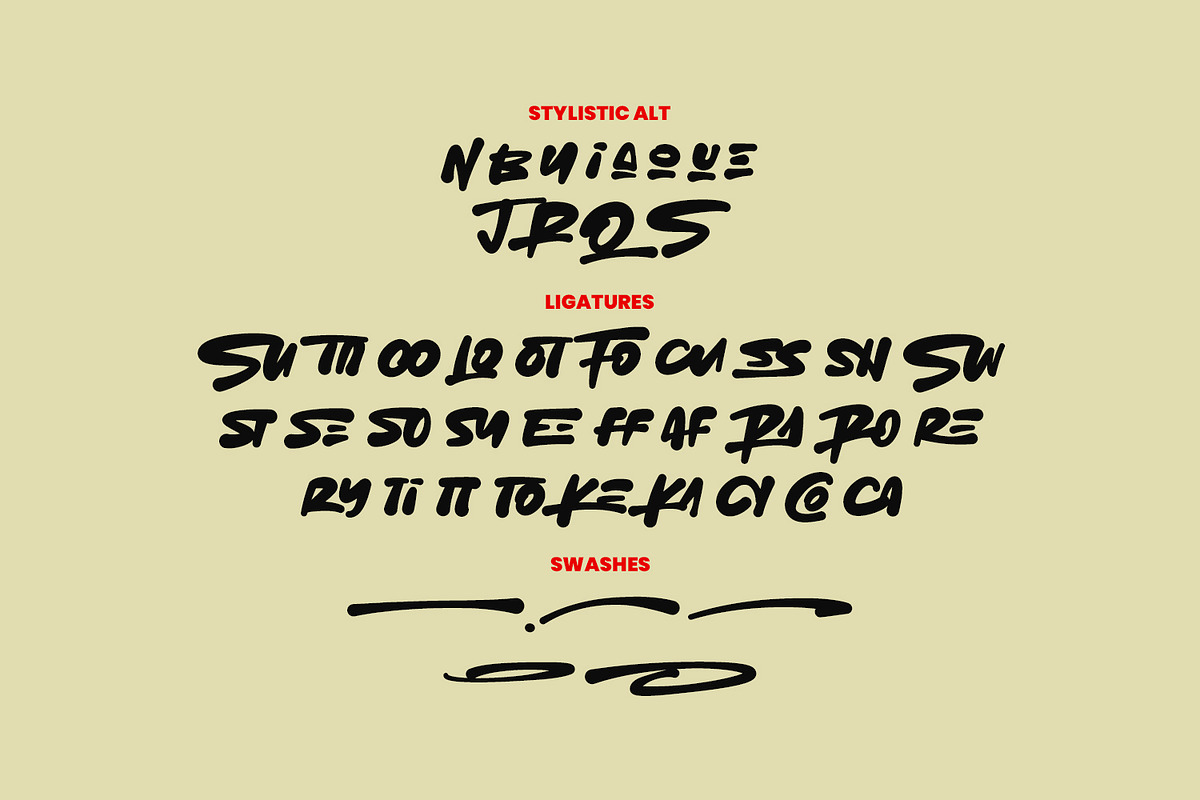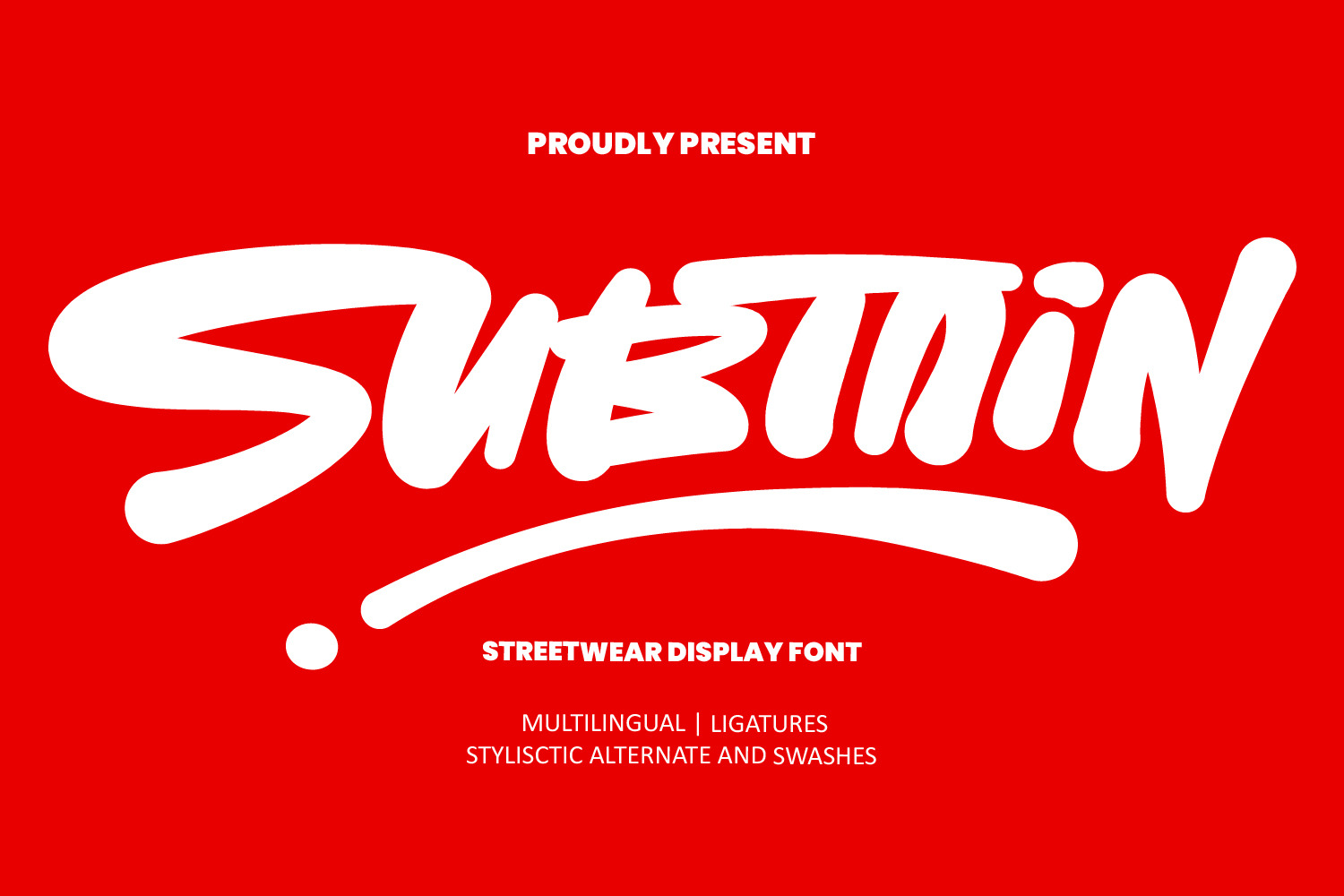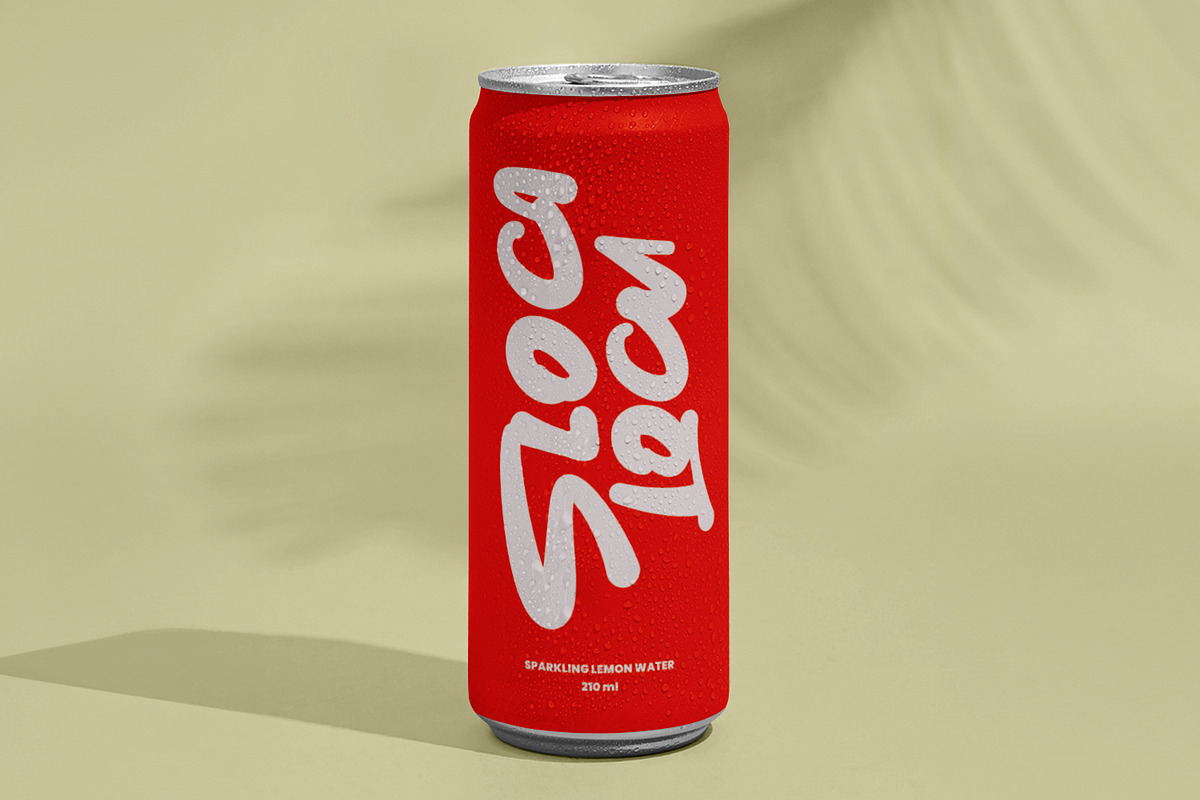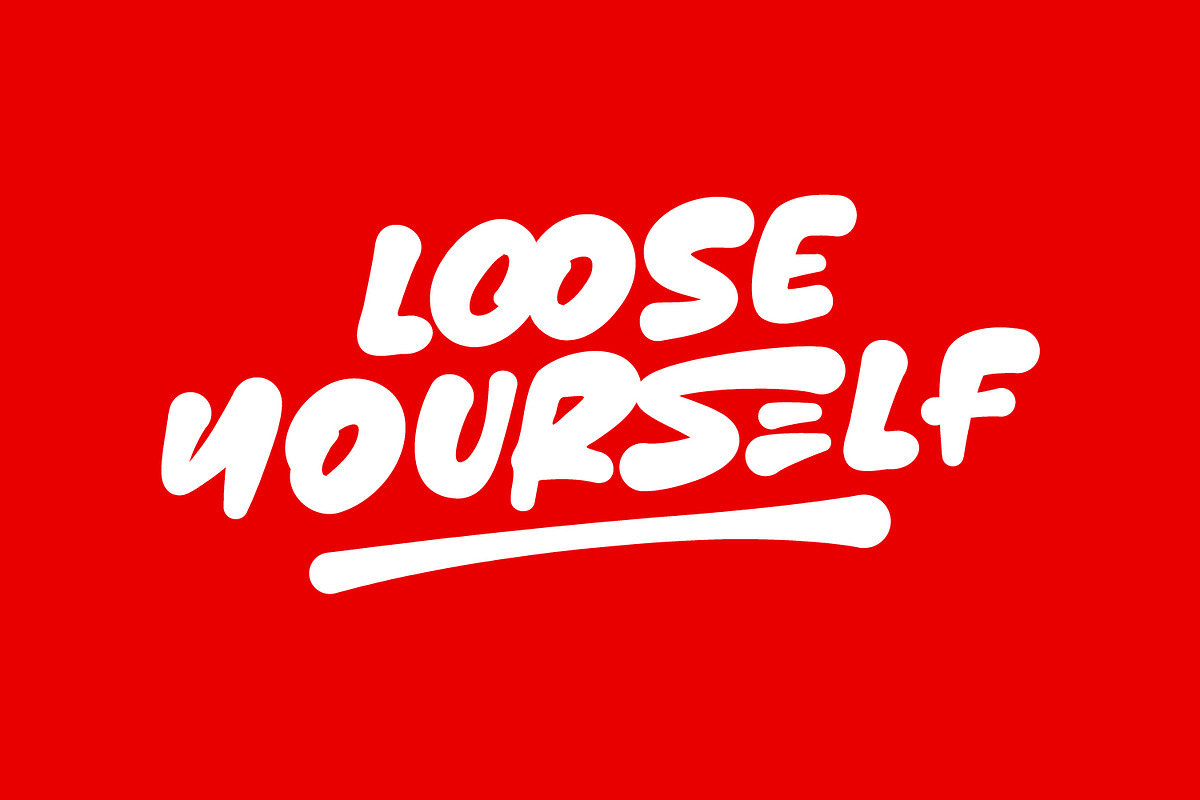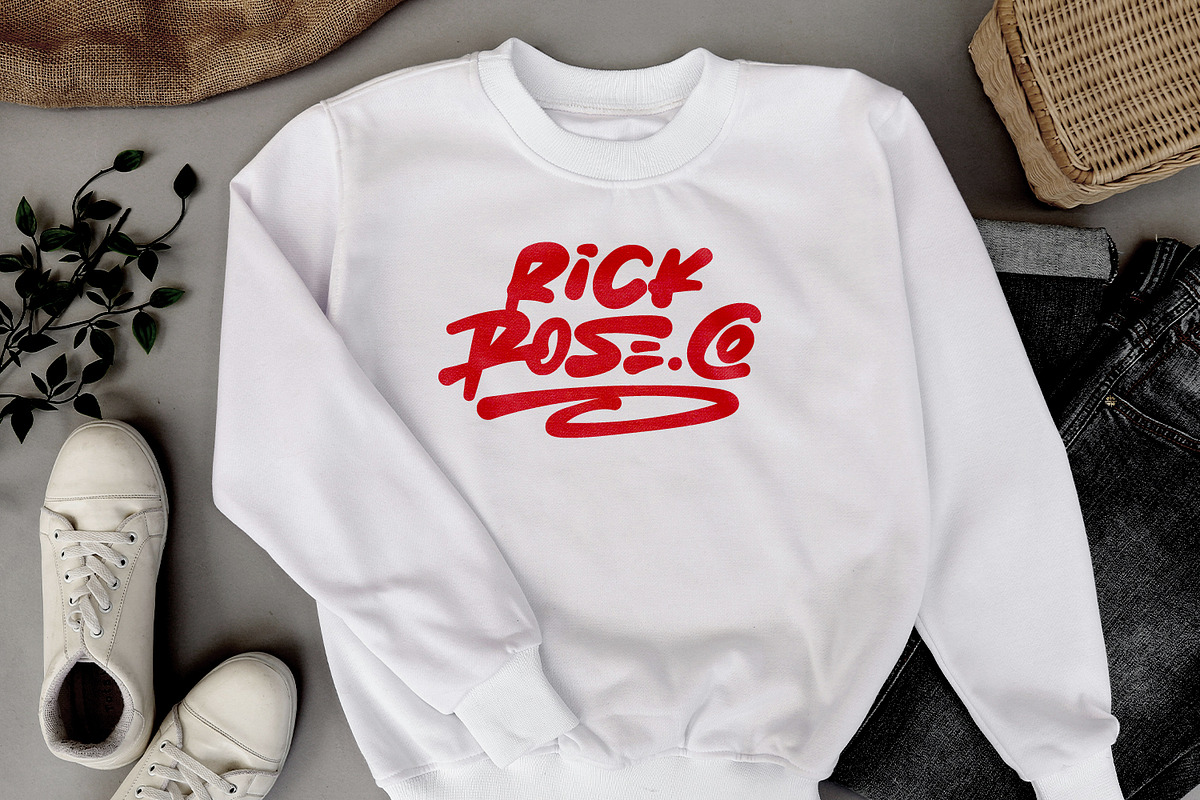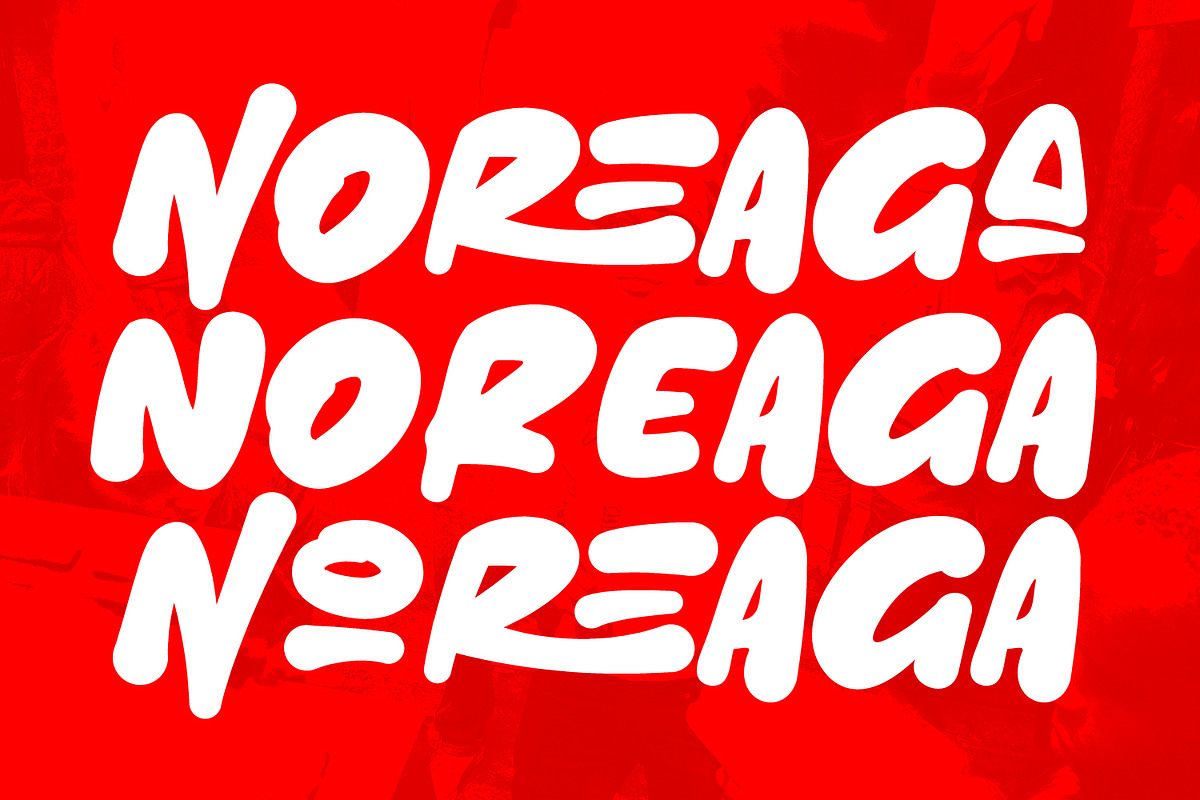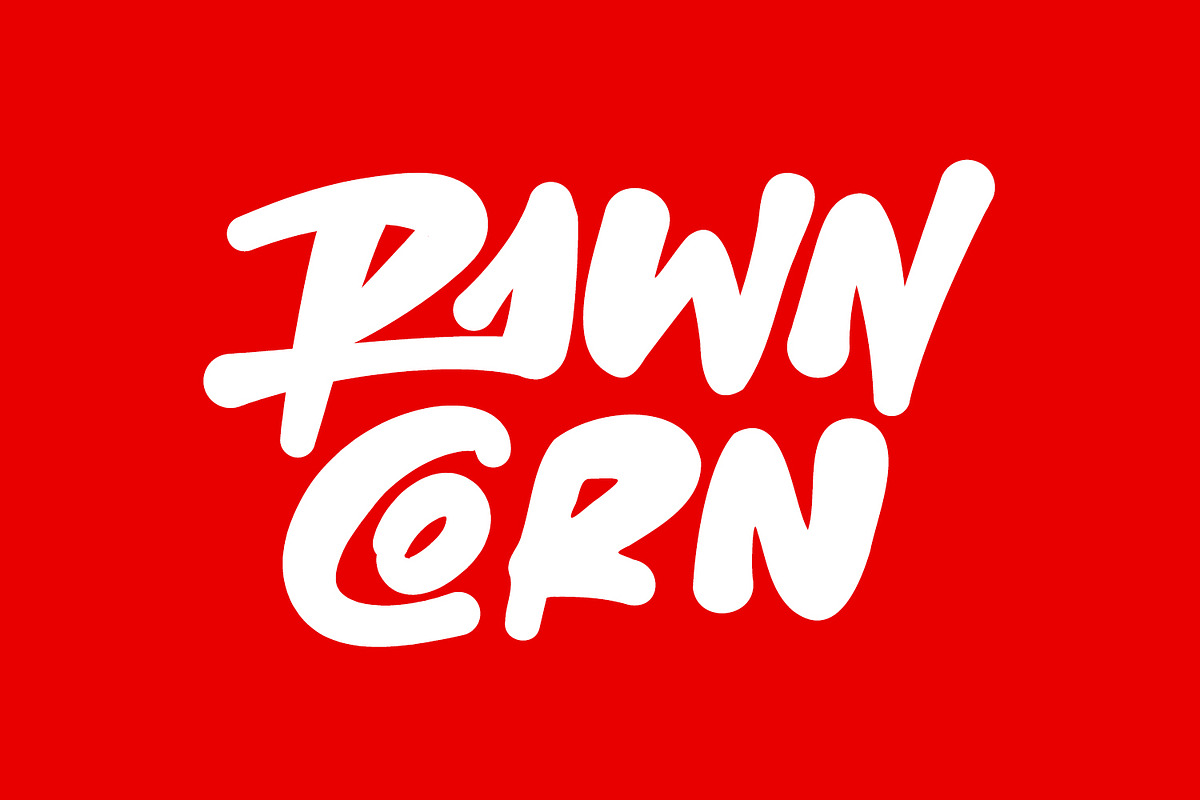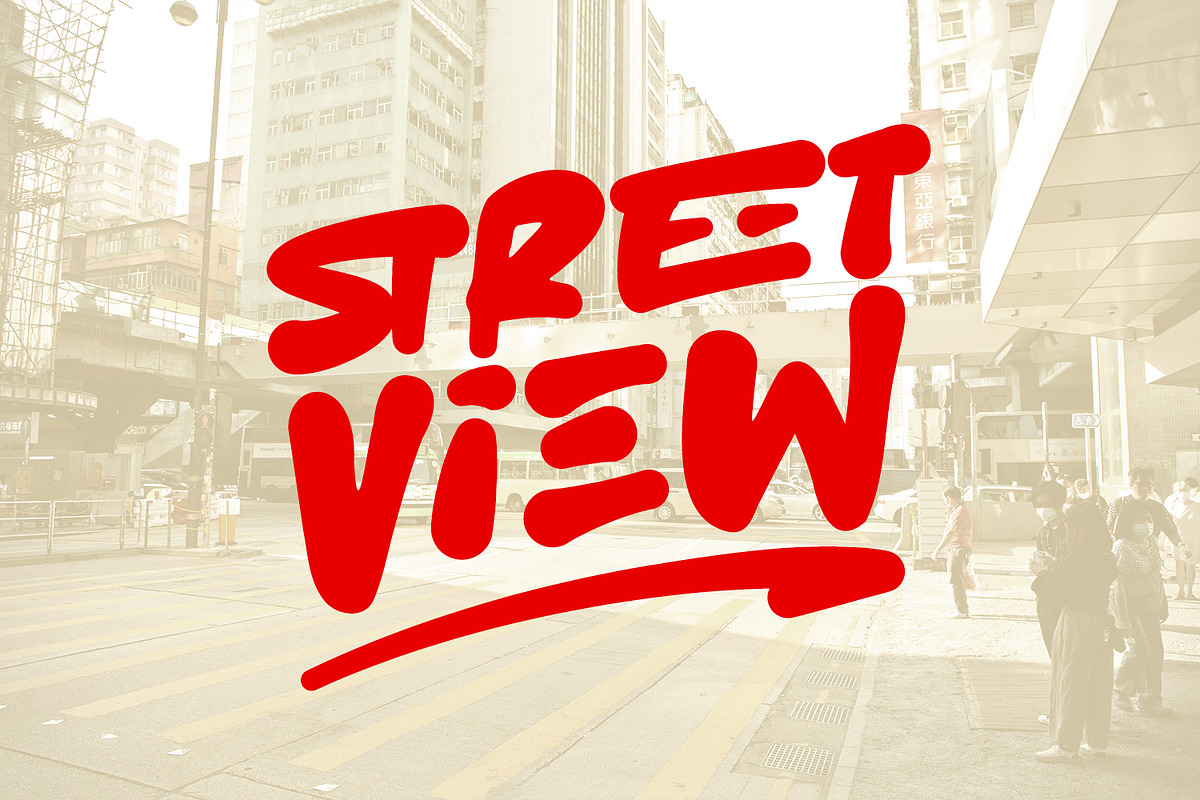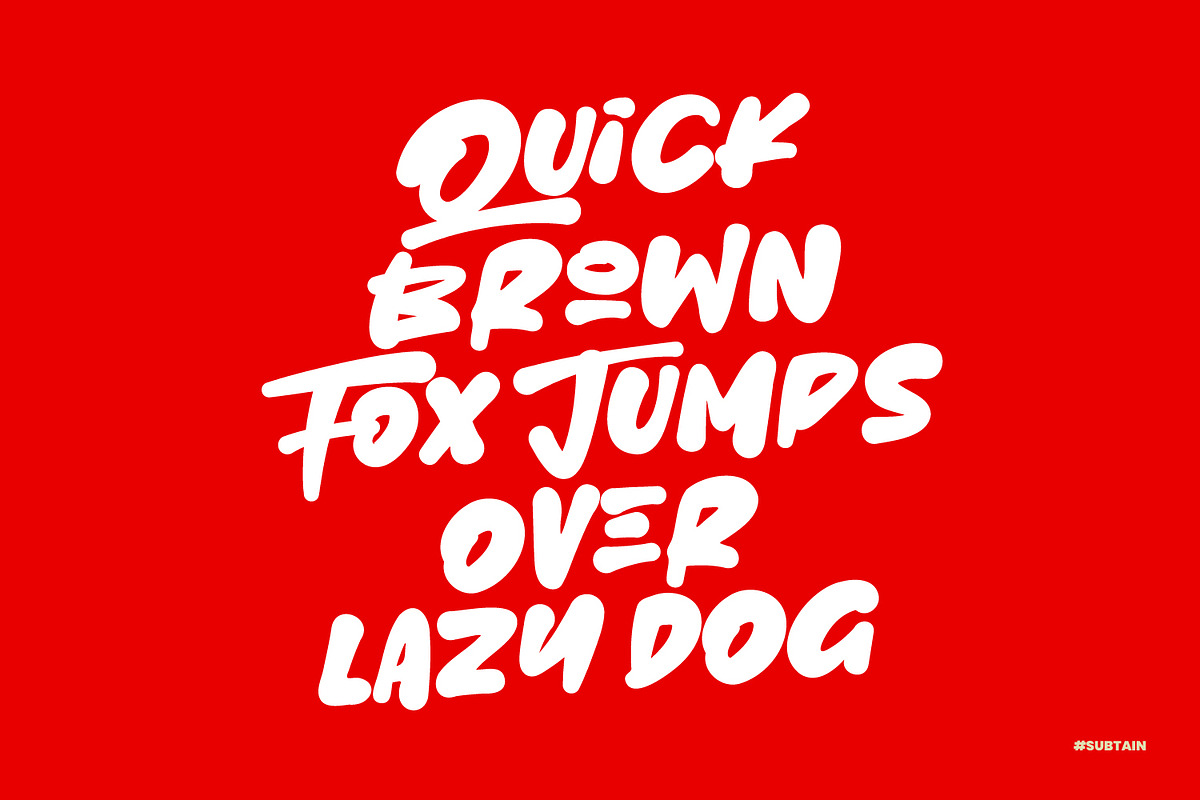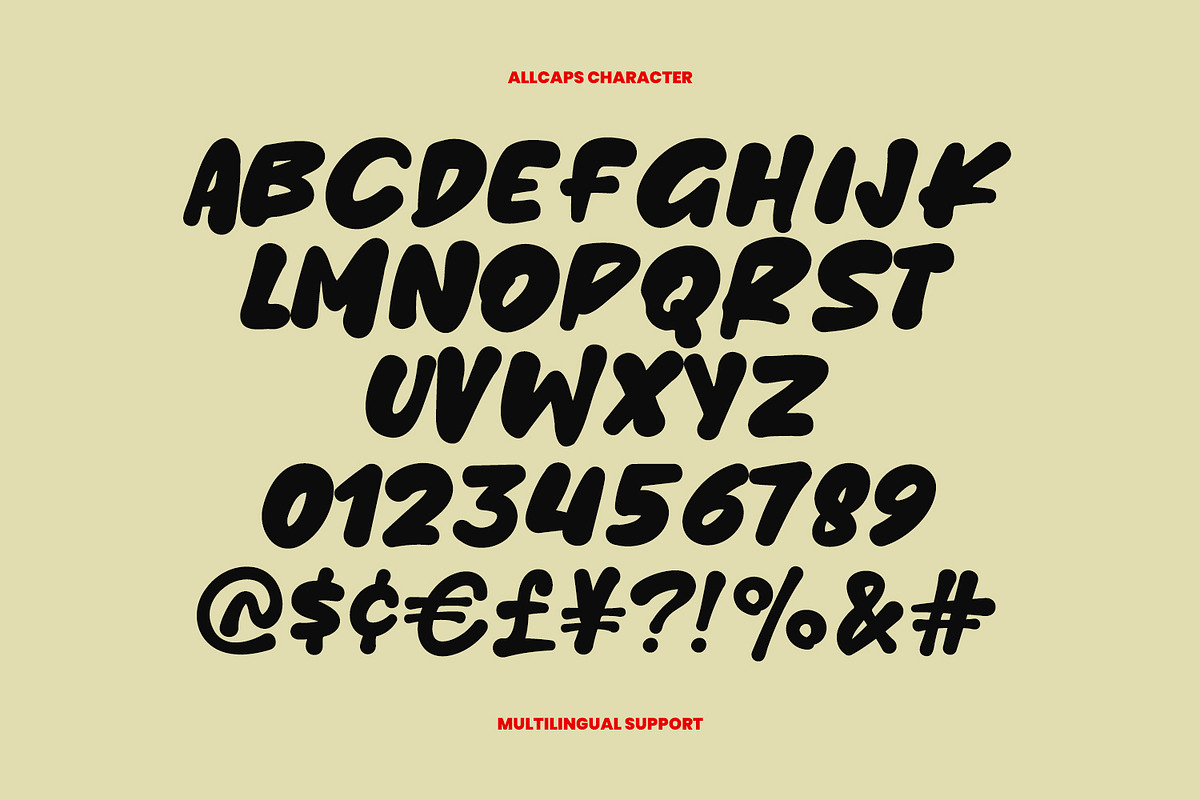
Subtain – Streetwear Display Font
Subtain is a bold and expressive streetwear display font, inspired by urban culture and modern graffiti design. With its thick strokes and dynamic letterforms, Subtain brings a strong visual impact to every word you type.
Perfect for fashion branding, poster designs, merchandise, logos, album covers, and any creative project that needs a daring and energetic touch.
Uppercase & lowercase letters
Unique ligatures for a natural flow
Stylistic alternates and swashes for extra flair